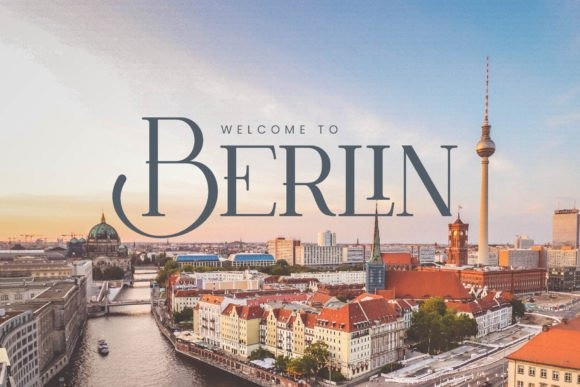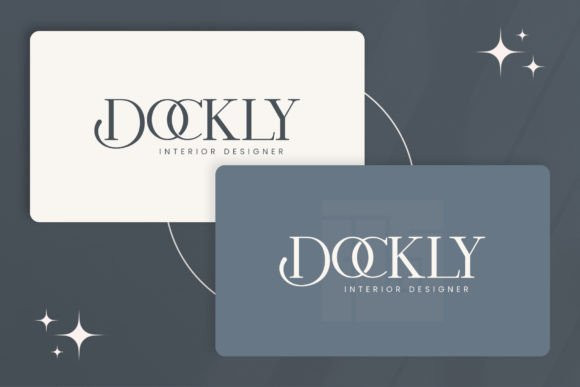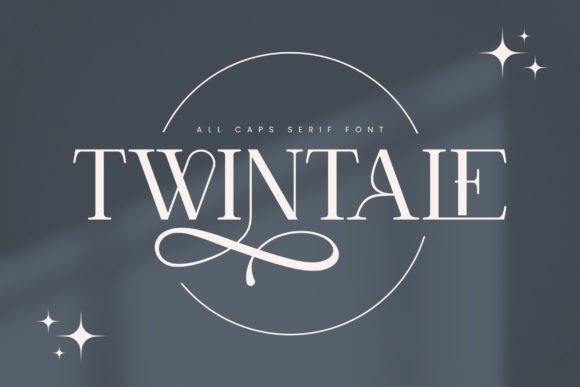
Twintale Font
Twintale Font is a balanced, smooth, elegant and stylish serif font. It fits perfectly with invitation card designs, company logos, movie titles, movie names, business cards, book titles, brand names and various other designs.